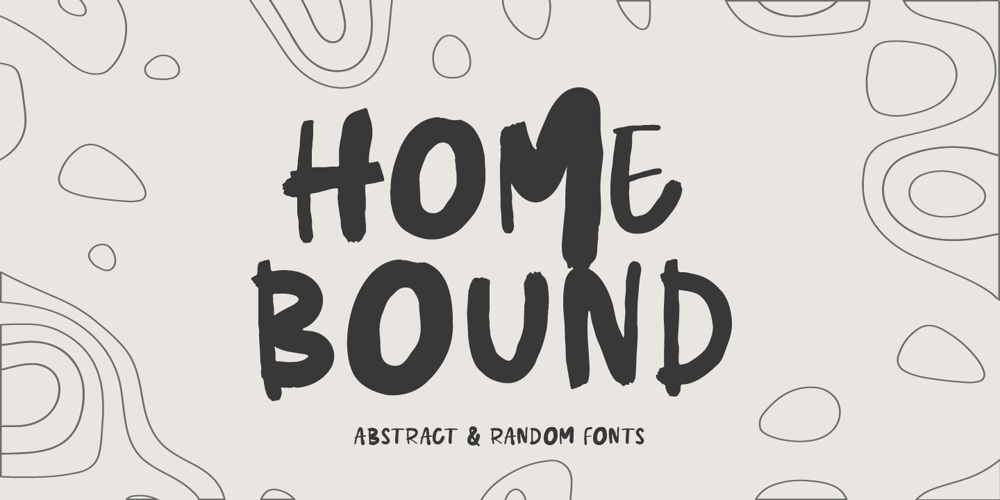
Homebound Font Family was designed by Stefie Justprince and published by Crumphand. Homebound contains 1 styles and family package options. Hello, introducing the new abstract & random fonts.It’s called Homebound.Homebound is abstract font. comes with different shape.Good for your graphic, easy to read.What’s Included Fonts ? Uppercase Lowercase Numerals Symbols European Multilingual Stylistic Set PUA Encoded Thank You, Regards!